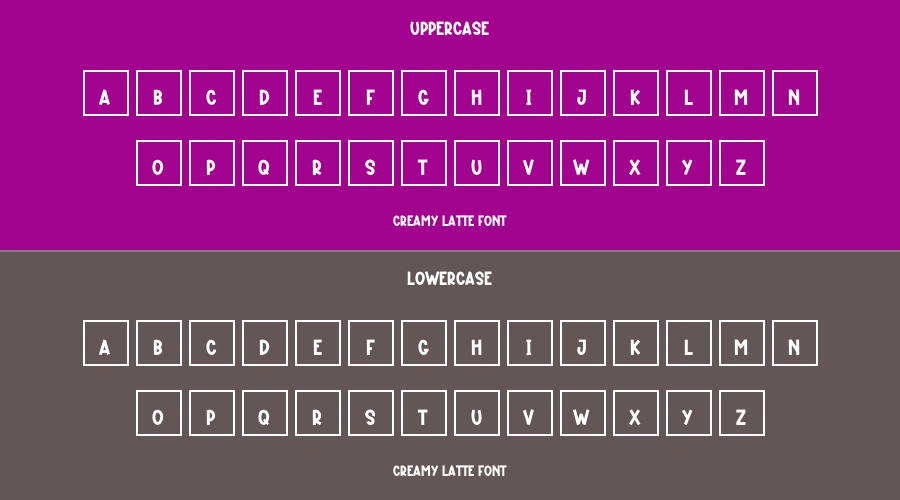
About Creamy Latte Font
Designed with precision, Creamy Latte Font merges geometric precision with professional standards in every character. This versatility makes it particularly effective for magazine covers, where flexibility and industrial strength directly impact communication quality. Each letterform demonstrates meticulous craftsmanship.
Technical excellence shines through elements like dynamic forms and mid-word alternates, enhancing typographic versatility. In identification tags settings, Creamy Latte Font proves its worth through superior brand recognition. The thoughtful execution of descender depth and historical context ensures professional results.